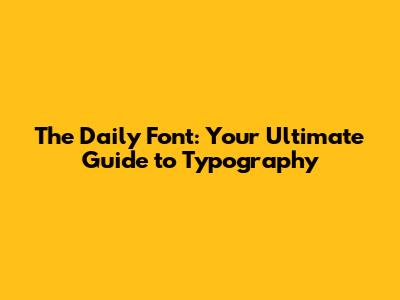
- Roboto: A versatile and clean sans-serif font, ideal for websites, apps, and general design projects. It's known for its readability and modern appearance.
- Open Sans: Another popular sans-serif font, often used for web content due to its open, friendly feel and excellent readability across different devices.
- Lato: A sleek sans-serif font that works well for both body text and headlines. It has a warm and approachable feel, making it suitable for a variety of projects.
- Montserrat: A geometric sans-serif font that is great for headlines and branding. Its clean lines and modern aesthetic make it a versatile choice.
- Playfair Display: A high-contrast serif font that is perfect for headlines and titles. It adds a touch of elegance and sophistication to your design.
- Poppins: A geometric sans-serif font that's highly versatile and works well for both print and digital designs. It's known for its clean, modern look.
- Helvetica: A timeless sans-serif font that's perfect for a wide range of applications. It's clean, neutral, and easy to read. It's a classic for a reason!
- Times New Roman: A classic serif font that is widely used for body text in books, articles, and documents. Its readability makes it a reliable choice for long-form content.
- Lato (Headline) and Open Sans (Body Text): This pairing is a safe bet for a clean and modern look. Both fonts are highly readable and work well together.
- Playfair Display (Headline) and Roboto (Body Text): This is an elegant pairing with a touch of sophistication. Playfair Display adds flair to headlines, while Roboto provides a reliable body text.
- Montserrat (Headline) and Lato (Body Text): This pairing is versatile and modern, and it works for a lot of designs. Montserrat adds a geometric touch, while Lato ensures readability.
- Poppins (Headline) and Source Sans Pro (Body Text): This pairing is clean and contemporary. The geometric structure of Poppins contrasts well with the readability of Source Sans Pro.
Hey everyone, welcome to The Daily Font, your go-to resource for all things typography! We're diving deep into the fascinating world of fonts, covering everything from the best fonts to use, how to find the perfect font pairings, some essential typography tips, and even how to navigate font licensing. Whether you're a seasoned designer or just starting to appreciate the beauty of well-chosen fonts, this guide is packed with insights to elevate your design game. So, let's get started and explore the wonderful world of type!
Unveiling the Best Fonts: A Comprehensive Guide
Choosing the right font can be a game-changer for your projects. It's like finding the perfect outfit; it can make or break the overall impression. So, where do we start? Well, first off, you need to understand the different font categories out there. There's a whole universe to explore! We have the classic serif fonts, known for their elegance and traditional feel, with those little strokes at the end of each letter, perfect for body text in books or formal documents. Think of Times New Roman or Garamond – they're your go-to choices for readability and a touch of class. Then, we have sans-serif fonts, which ditch those little strokes for a clean, modern look. These are the go-to choices for websites and contemporary designs, offering a sleek and minimalist vibe. Think Helvetica, Arial, or Open Sans – they’re all about clarity and a modern edge. Next up, we have display fonts – these are the bold, eye-catching fonts designed for headlines and short bursts of text. They’re all about making a statement, and they come in every style imaginable, from playful to dramatic. Think of fonts like Impact or Lobster; they are meant to grab your attention instantly. Lastly, there are script fonts, which mimic handwriting and add a touch of personality and flair. They are great for logos, invitations, and anything that needs a touch of elegance or a personal touch. Fonts like Brush Script or Pacifico fall into this category. Now, when you are selecting a font, make sure to consider the purpose of your project. Is it a website, a poster, or a presentation? The context will help you narrow down your choices! For example, a website usually works better with a sans-serif font for easy readability on screen, while a printed invitation might benefit from a beautiful script font. Don’t be afraid to experiment! Try out a few fonts, see how they look in different sizes and weights, and get a feel for how they communicate your message. Remember, the best font is the one that best suits your project and audience.
Popular Font Choices and When to Use Them
Let’s get into some specific font recommendations, shall we? Guys, here’s a shortlist of some popular fonts and when they work best:
Mastering Font Pairings: Creating Harmonious Combinations
Alright, now let’s talk about one of the keys to good design: font pairings. Finding the right font combinations is like mixing the perfect cocktail, they must complement each other. It’s all about creating visual harmony and ensuring that your design feels balanced and cohesive. You want to make it look professional and pleasing to the eye, so here are a few font pairings tips.
First off, think about contrast. You want some difference between your fonts so that they don’t blend together and become unreadable. This contrast can come from the font style (serif vs. sans-serif), the weight (bold vs. light), or the size. Contrast creates visual interest and helps the eye navigate the content. Another helpful approach is to consider font families. A font family is a group of fonts that share a similar design but come in different weights and styles. It's a great way to ensure consistency across your design! For example, you might use a bold version of a font for your headlines and a regular version for your body text. Try matching fonts that have similar characteristics but different styles. Think of pairing a geometric sans-serif with a humanist sans-serif or a classic serif with a modern sans-serif. Matching fonts of different styles can work so well! When you're first getting started, keeping it simple is key. The biggest mistake is to use too many fonts, which can make your design look cluttered and unprofessional. As a general rule, stick to two or three fonts max, one for headlines, one for body text, and maybe a decorative font for accents. Remember, less is often more. So when you are selecting your fonts, make sure you know your brand’s personality and target audience. Is your brand playful, formal, or something in between? Your font choices should reflect your brand’s tone and values. If you are a fashion brand, then a modern and elegant font may be more appropriate, while if you are a children's brand, a fun and playful font may be the better option. Consider the readability of your font pairings. You’re working to communicate a message, so clarity is key. Make sure that both fonts are legible at different sizes and weights. Avoid pairing fonts that are too similar, as it can be difficult for the eye to distinguish between them. Instead, choose combinations that offer a clear contrast, making it easy for the reader to differentiate between headings and body text. Always test your font pairings in a real-world context. Place your chosen fonts within your design to see how they look together. Experiment with different sizes, weights, and placements to see how they interact. Get feedback! Ask friends or colleagues for their opinions on your font choices. They can provide valuable insights and help you refine your designs.